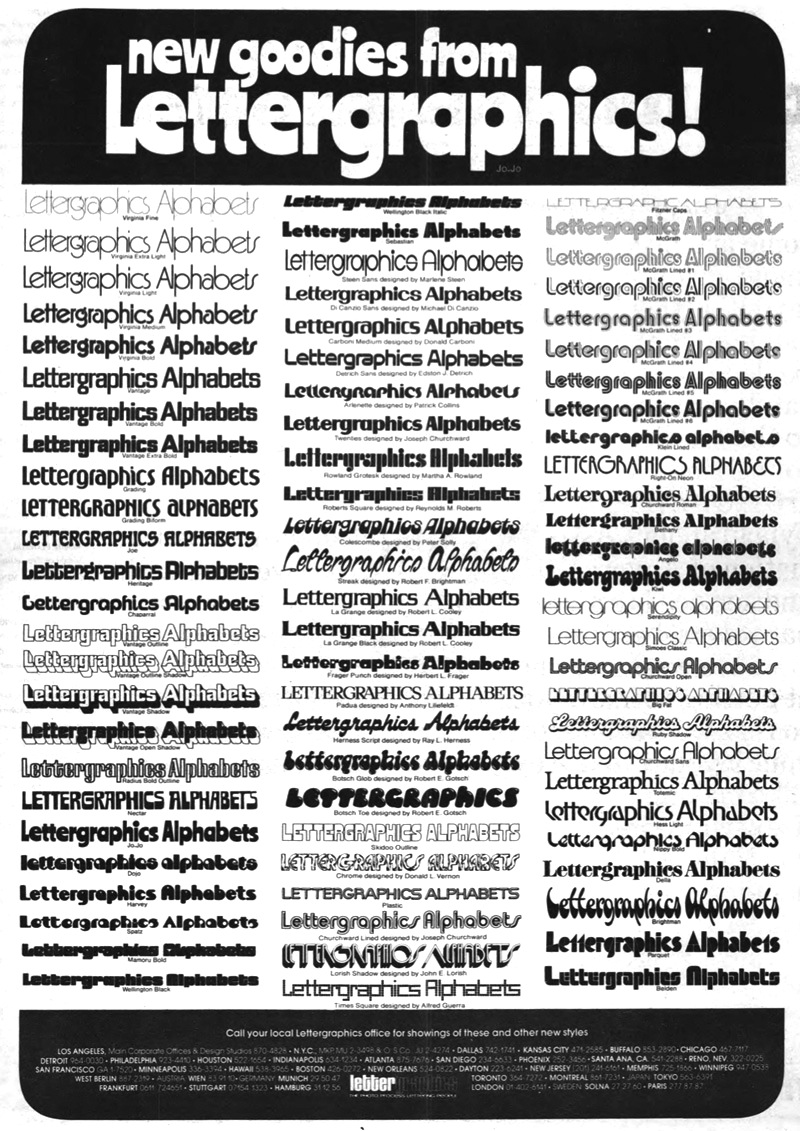
LetterGraphics [Marc Jones Barry Kimbrough]
Photolettering foundry run by Marc Jones Barry Kimbrough in Culver City, CA. Russell Bean worked for the Los Angeles studio of Lettergraphics International in charge of lettering, logo design and converting type designs to film fonts. It was at this time (1973) that the Washington family (digital version at Type Associates, Russell Bean's present company) was completed. The company ceased operations in the mid-1980s.
The 1968 catalog of Lettergraphics featured typefaces like the psychedelic Mod Poster in Alfred Roller's Viennese secession style. The 1974 catalog of Lettergraphics shown in ULC 1974 includes these typefaces:
• House styles: Virginia, Vantage, Grading, Joe, Heritage, Chaparral, Radius, Nectar, JoJo, Dojo, Harvey, Spatz, Mamoru, Wellington, Sebastian, Belden, Parquet, Della, Nippy, Hess, Totemic, Ruby, Big Fat, Simoes Classic, Serendipity, Kiwi, Angelo, Bethany, Right-On Neon, Klein Lined, McGrath, Fitzner Caps, Skidoo Outline, Plastic.
• By Joseph Churchward: Twenties, Churchward Sans, Churchward Roman, Churchward Lined.
• By Marlene Steen: Steen Sans.
• By Michael Di Canzio: Di Canzio Sans.
• By Donald Carboni: Carboni.
• By Patrick Collins: Arlenette.
• By Edston J. Detrich: Detrich Sans.
• By Martha A. Rowland: Rowland Grotesk.
• By John E. Lorish: Lorish Shadow.
• By Alfted Guerra: Times Square.
• By Reynolds M. Roberts: Roberts Square.
• By Peter Solly: Colescombe.
• By Robert F. Brightman: Streak, Brightman.
• By Robert L. Cooley: La Grange, La Grange Black.
• By Herbert L. Frager: Frager Punch.
• By Anthony Liliefeldt: Padua.
• Ray L. Herness: Herness Script.
• Robert E. Gotsch: Botsch Glob, Botsch Toe.
• Donald L. Vernon: Chrome.
Digital revivals:
• Latitude Sans (2019, Stiggy & Sands). A heavy sans based on Lettergraphics' Free.
• Mushmouth PB (2019, Phil Bracco). A revival of the comic book font Albert.
• Nudity PB (2018, Phil Bracco) revives Ad Shadow as a layerable font.
• Wintermint (2018, Phil Bracco) revives and extends the flared almost psychedelic typeface Lori.
• Boilermaker (2018, Stiggy&Sands) is a revival of the tall condensed sans LetterGraphics typeface Flair G100.
• The psychedelic (art nouveau inspired) typeface called Cantini (1972) was digitally revived and expanded by Patrick Griffin as Salome (2007, Canada Type).
• Intrigue is a Lettergraphics film typeface that was digitized, revived and expanded to a large octagonal / mechanical typeface family, Contraption, by Phil Bracco (Pink Broccoli).
• Scrwby (2013, Phil Bracco) is a revival of Surf.
• Virginia (2008, Russell Bean) is a digitization of an old avant garde typeface by Bean himself from ca. 1970 that won a Lettergraphics typeface competition. It was extended by two weights and redrawn in 2016 as Virginia Neo.
• Rebecca Alaccari (Canada Type) designed Goudy Two Shoes in 2006, an expansion of the film typeface Goudy Fancy by Lettergraphics.
• Good Grief PB (2015, Phil Bracco) started out as a revival of Carmel (or Karmel).
• MardiKrewePB (2015, Phil Bracco) started as a digitization of a (psychedelic) film typeface called MardiGras by Lettergraphics.
• Maile was digitized and extended by Stiggy & Sands as Husk in 2018.
• Gene Eidy's Sukiyaki (1968, Lettergraphics) was eventually digitized (without permission) by Jonathan Smith as Hirosh (1993). In 2020, Steve Harrison did a proper digital revival giving full credit to Eidy---his free typeface is also called Sukiyaki.
• Laurel was revived and extended/modified by Stiggy & Sands in 2019 as Lorette.
• Rackem PB (2019, Phil Bracco) is a beatnik font that started as a digitization of the LetterGraphics film typeface Eightball. There are other Eightball film fonts of a very different look elsewhere, so that name is a bit confusing.
• The bullethole typeface Circue Solid was revived by Phil Bracco as Blackhole PB (2019).
• Wood Grotesk. This font was revived and expanded in 2020 by Stiggy & Sands as Bugleboy. Berkshire Pro (a plump display typeface).
• Caren. A great stencil font revived in 2021 by astigmatic One Eye as Rinzler AOE Pro.